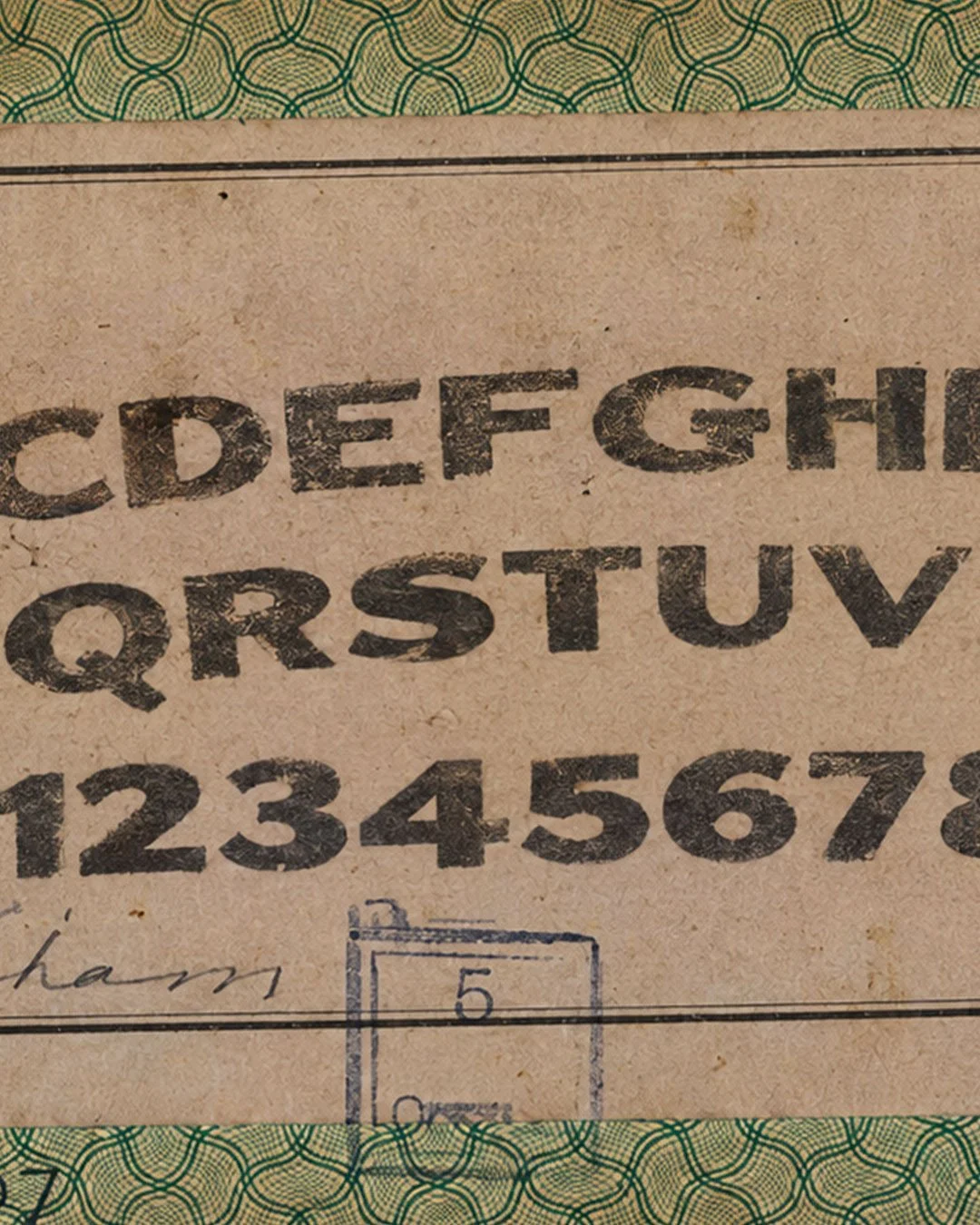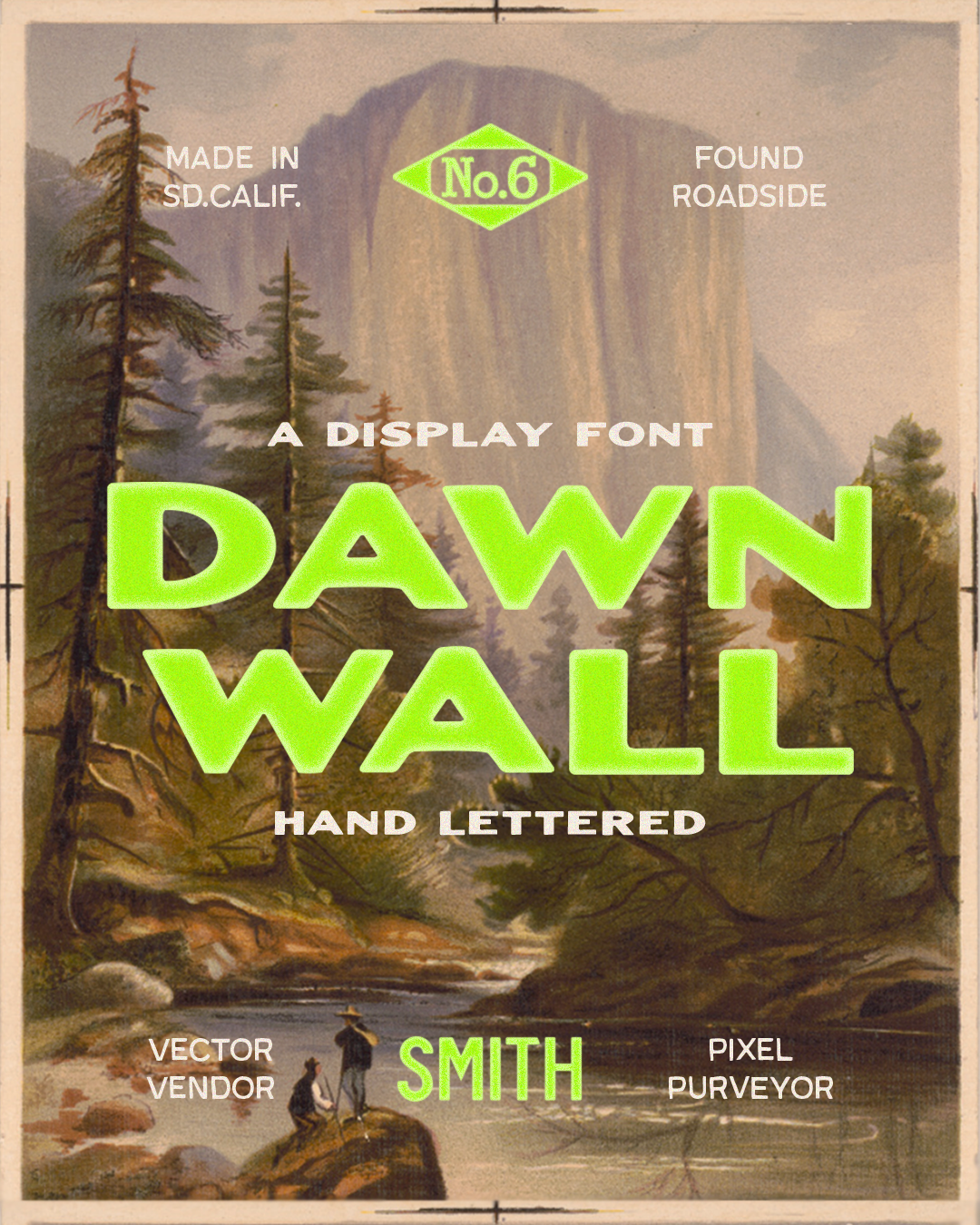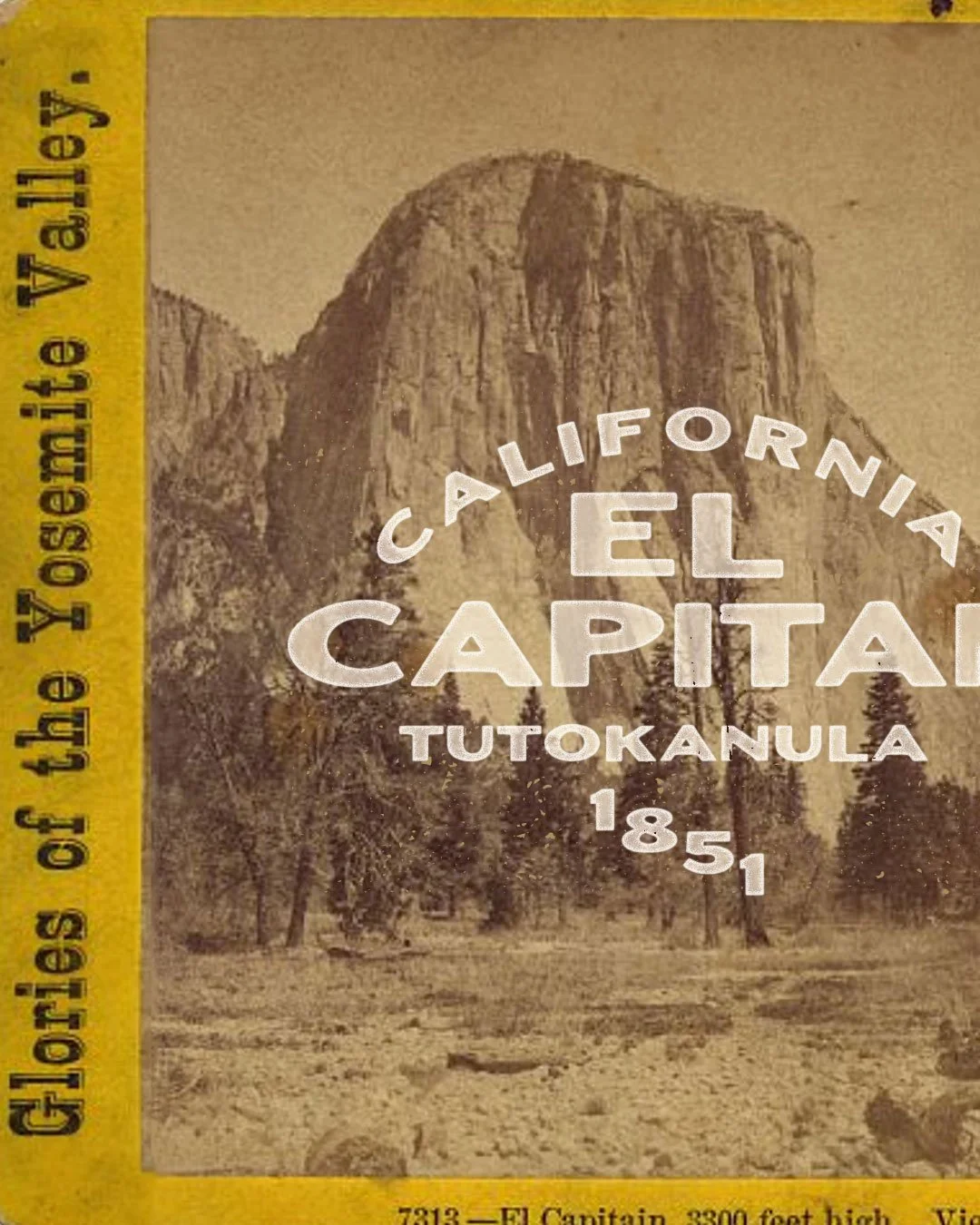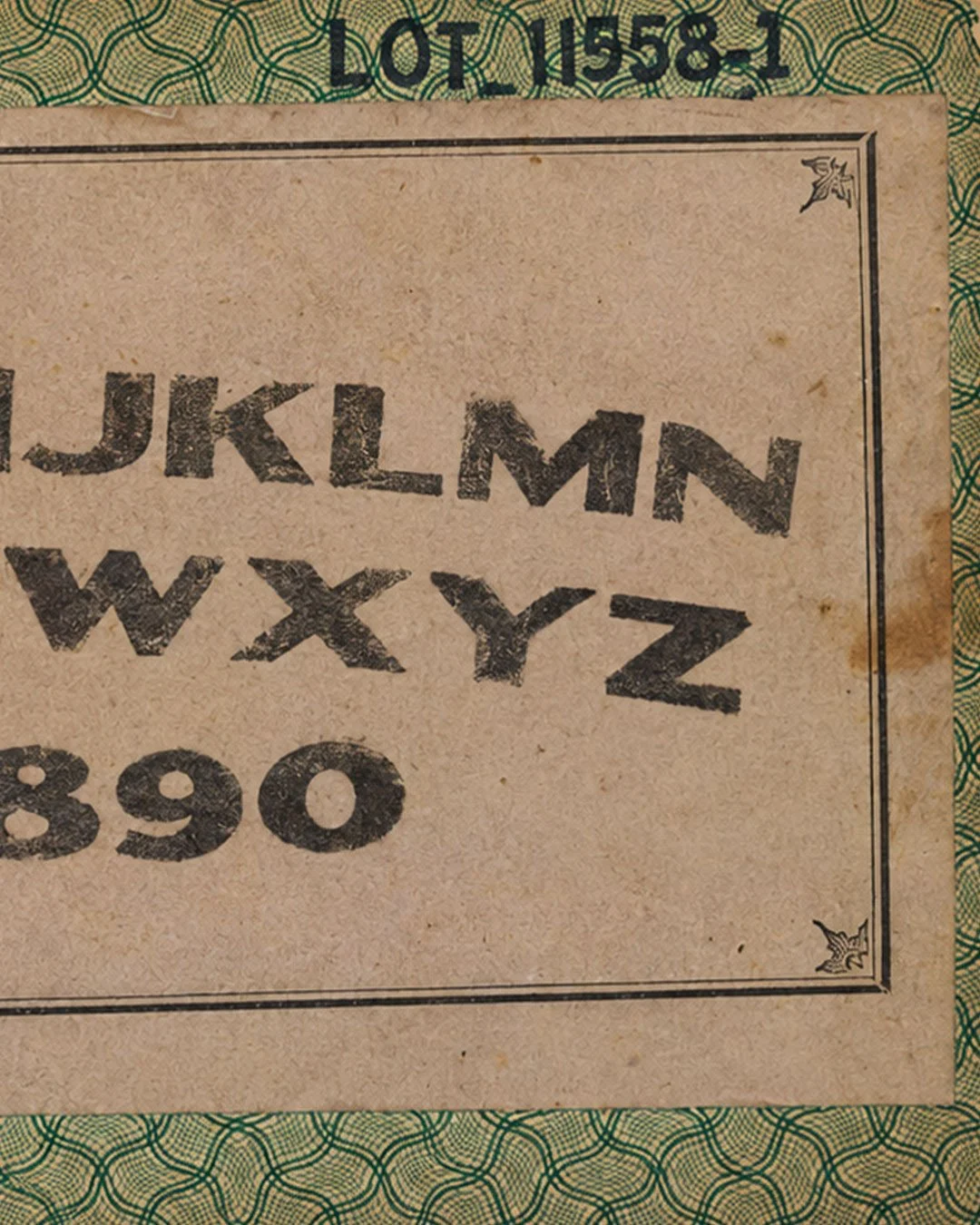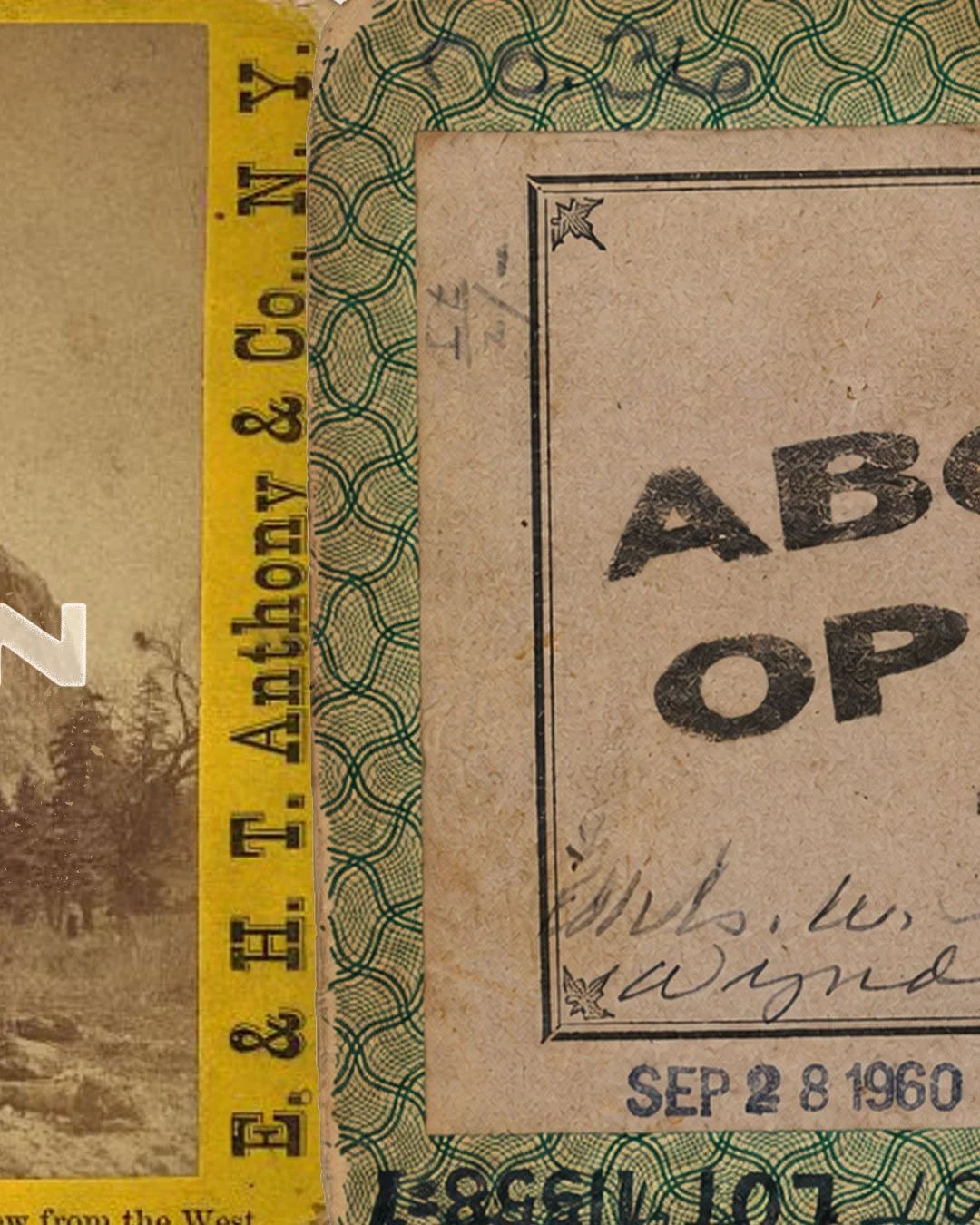
Dawn Wall is a hand-lettered display typeface inspired by the imperfect shapes and character of vintage hand-painted lettering. Built from letters drawn by hand, the font keeps the subtle inconsistencies that give old signage and printed ephemera their personality.
Bold and intentionally imperfect, Dawn Wall works well for branding, packaging, apparel, posters, merchandise, and anywhere you want typography to feel made by a person rather than a machine.
The font includes uppercase, numbers, and punctuation, giving you a complete character set for both display type and supporting text.